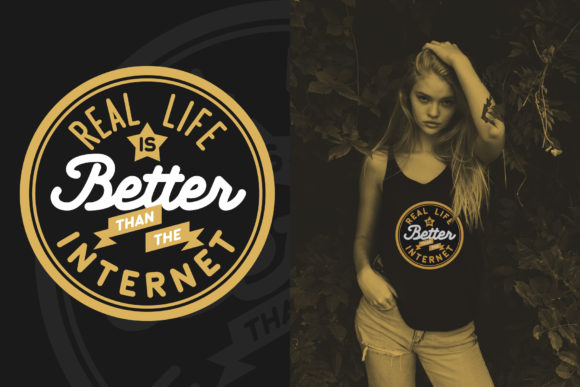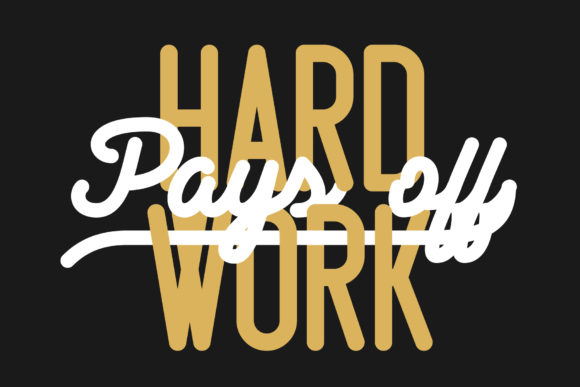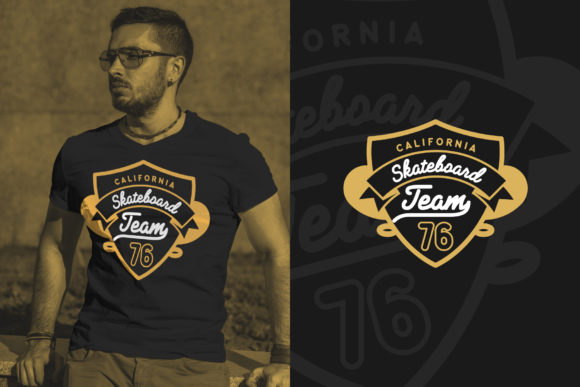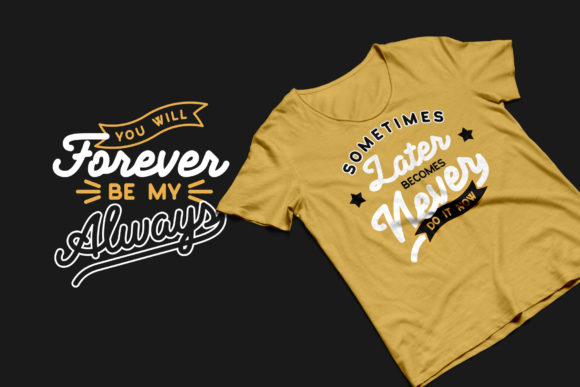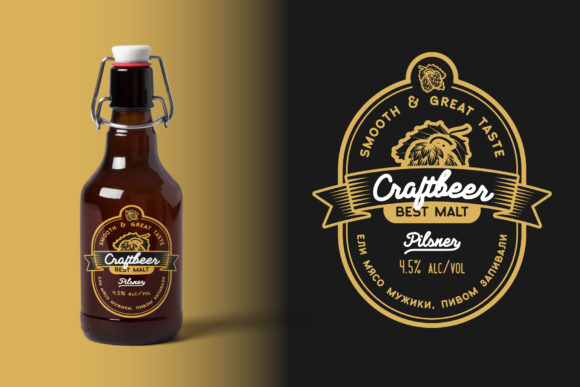
Heartland Trio Font
About Heartland Trio Font
Heartland is a retro-inspired font trio featuring a bold script and two rounded sans styles. It will add a vintage feel to any design project!